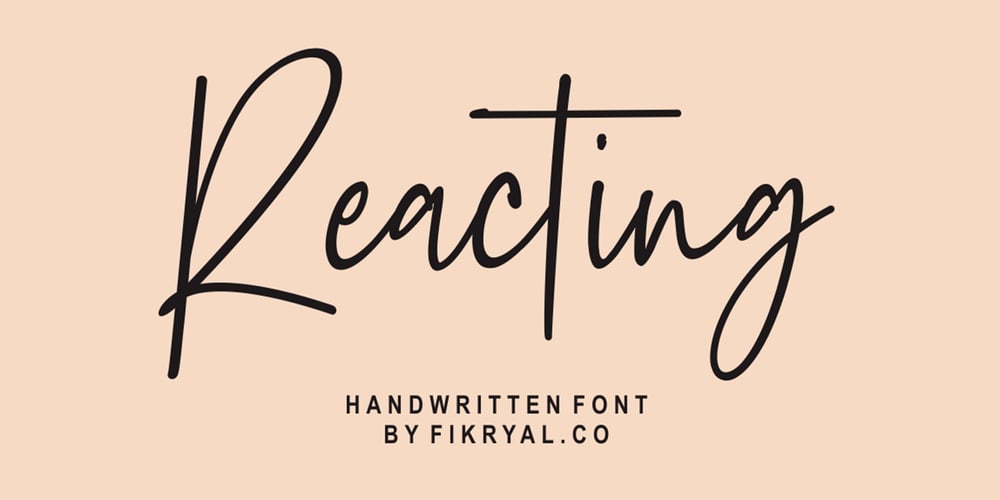
Reacting Font Family was designed by Muhammad Fikry and published by Fikryal. Reacting contains 1 styles and family package options. Reacting – Handwritten Font is perfect for logo, branding, invitation, tittle, wedding designs, social media posts, advertisements, product packaging, product designs, label, photography, watermark, special events, magazines, web design, etc. What’s Included : Ligatures Multilingual support If you have any questions please don’t hesitate to contact me!